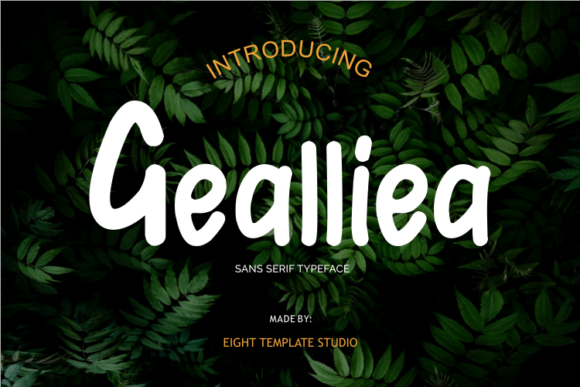
Discover the Endless Possibilities with Gealliea Font
You know that moment when you’re brainstorming ideas for a new project, and suddenly, a spark of creativity strikes? The words start flowing, and your imagination runs wild. That’s exactly what happens when you work with the perfect font. For designers, finding that perfect font can be a game-changer. Introducing Gealliea Font, a sweet and friendly handwritten font that brings a touch of warmth and personality to any design.
With its natural and unique style, Gealliea Font is incredibly versatile, making it the perfect choice for a wide range of designs. Whether you’re creating a branding package, a wedding invitation, or a social media campaign, this font is sure to bring your vision to life. The value of Gealliea Font lies in its ability to add a human touch to your designs, making them more relatable and engaging.
Gealliea Font Key Features
- Font Family: Gealliea is a sans-serif font family designed for digital use, available in multiple weights and styles.
- Unique Characteristics: Gealliea Font features a clean, modern design with subtle rounded edges, making it suitable for a wide range of applications, from digital signage to user interfaces.
Designer Review: Gealliea Font
Overall, I have mixed feelings about Gealliea Font. Let’s start with what works well: ✨ The font has a unique, modern design that can add a touch of elegance to any project. The letterforms are sleek and well-spaced, making it perfect for titles and headings. ✨ The font also comes in a range of weights and styles, giving designers plenty of options to choose from.
However, there are some limitations to consider: ⚠️ The font may not be the best choice for body text, as it can be difficult to read in smaller sizes. ⚠️ Additionally, the font’s design may not be to everyone’s taste – some people may find it too minimalist or sterile.
Here are some key features of Gealliea Font:
- Unique, modern design
- Sleek letterforms and well-spaced layout
- Range of weights and styles
- Not suitable for body text in smaller sizes
- May not appeal to everyone’s taste
Overall, I think Gealliea Font is a solid choice for designers who want to add a touch of sophistication to their projects. However, it’s not a one-size-fits-all solution, and designers should carefully consider their needs and goals before choosing this font.
Gealliea Font is ideal for:
– Designing elegant and modern headlines.
– Creating a professional and sophisticated look for business documents.
– Adding a touch of sophistication to wedding invitations and stationery.
– Using as a secondary font to add contrast and visual interest to your design.
Tips for Getting the Most Out of Gealliea Font
To get the most out of Gealliea Font, use it in combination with other elegant and modern fonts, and adjust the font size and style to create visual balance in your design.